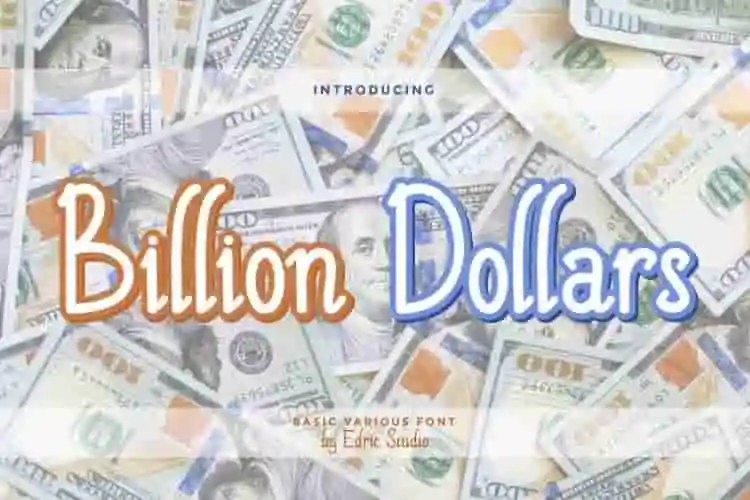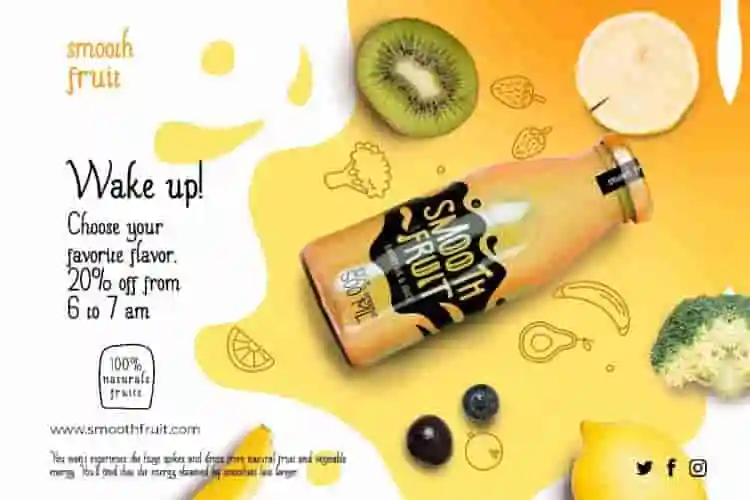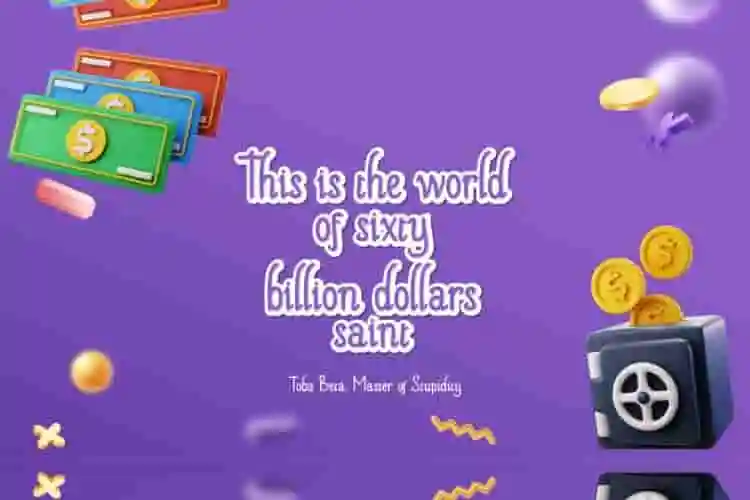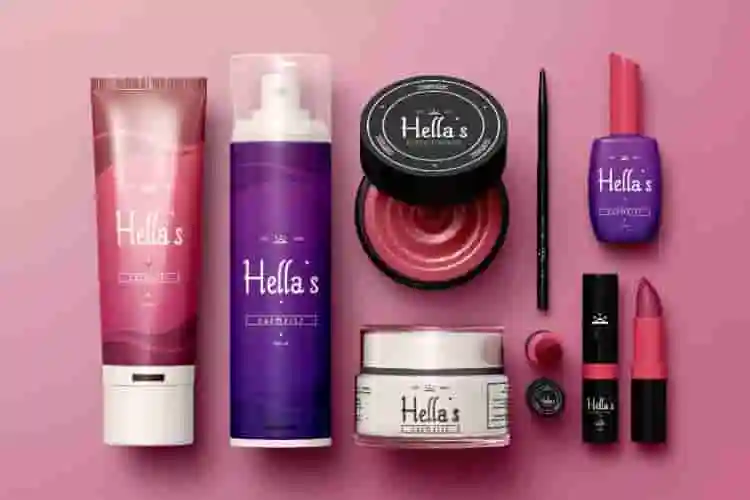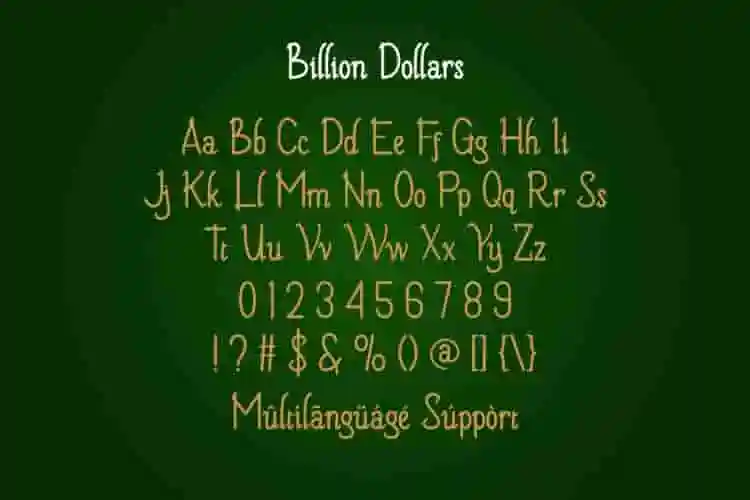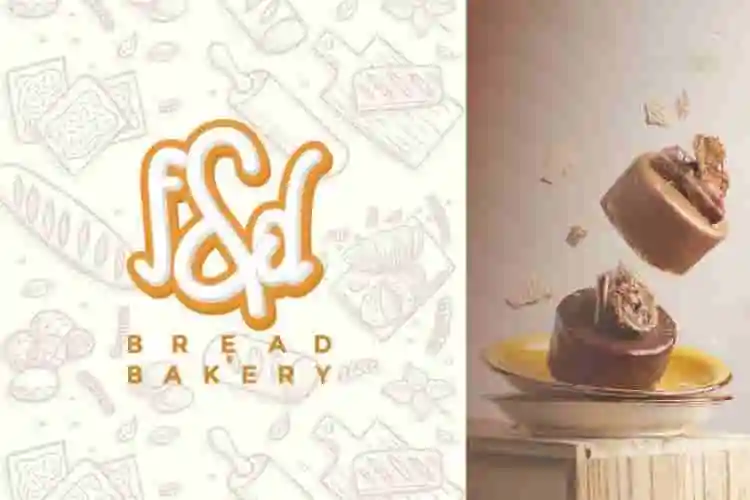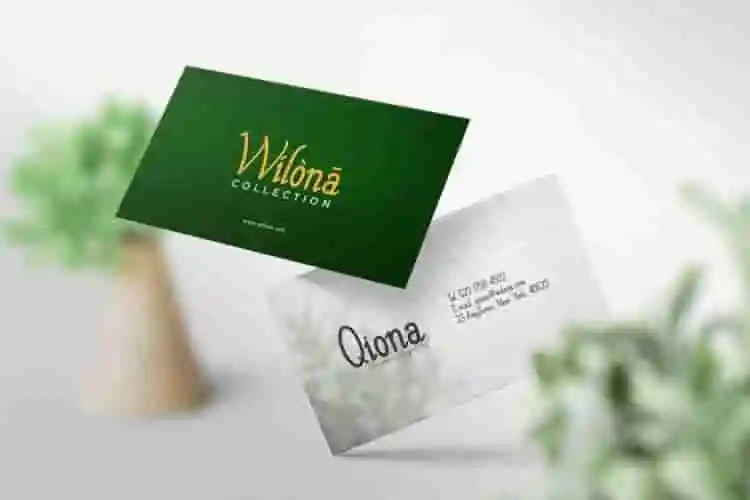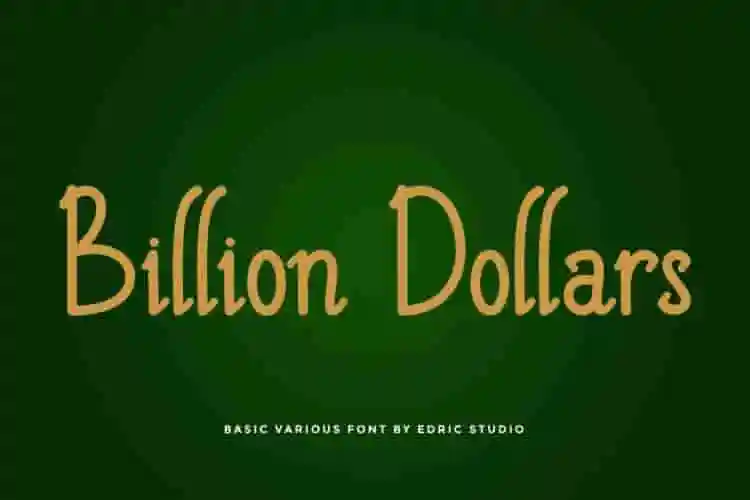
Billion Dollars Font is a modern serif font with display style created by EdricStudio, inspired by European cursive writing and currency. This typeface would be great for industries like, bakery, boutique, cosmetic, drink , finance, homeware, writer, and more!
Billion Dollars Display Font comes with a full set of Uppercase and Lowercase Basic Characters, Number, large range of Punctuation and Symbol, Ligature, and Swoosh. It has a stunning characters set, perfectly managed with well spaced and kerning. Billion Dollars Display Font will be great for any projects (with extended license) including: billboard, blog headers, brand logo, business card, product packaging, quote, title, etc.
Looking to elevate your brand’s visual identity? Meet Billion Dollars Display Font – a bold, luxurious, and high-impact typeface designed to turn heads and spark instant recognition. Crafted with precision and elegance, Billion Dollars is the perfect choice for branding, logo design, headlines, posters, magazine layouts, and premium packaging. Its strong lines and unique character shapes exude power and sophistication, making your designs feel both modern and timeless.
Whether you’re working on a luxury fashion campaign, designing a high-end website, or creating standout content for social media, this font delivers a professional edge that commands attention. It’s not just a font – it’s a statement.
- Perfect for High-End Branding
- Versatile for Digital & Print